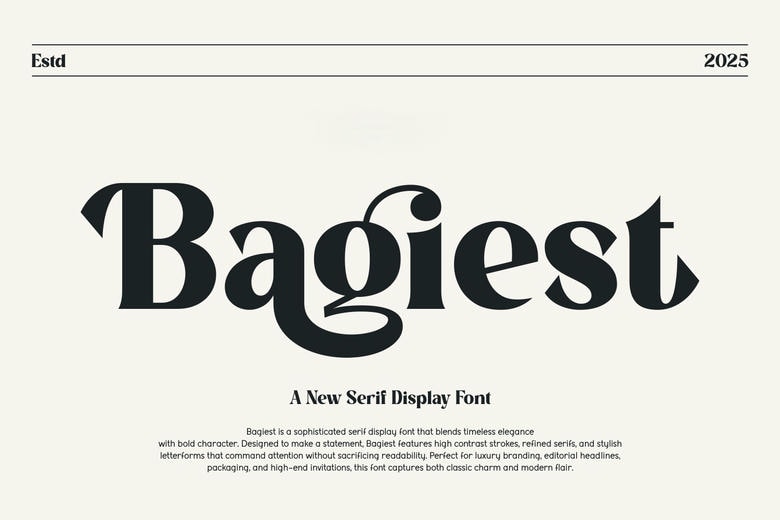
Bagiest Font
Bagiest is a fancy serif display typeface filled with class and ease. Bagiest is developed to create a lasting impression as it has bold contracts, sculptural serifs, and creative letterforms. This font is ideal in high-end branding, editorial titles, fashion and high-end packaging, with a traditional sophistication and a contemporary, expressive flair of type.
Bagiest Serif Font